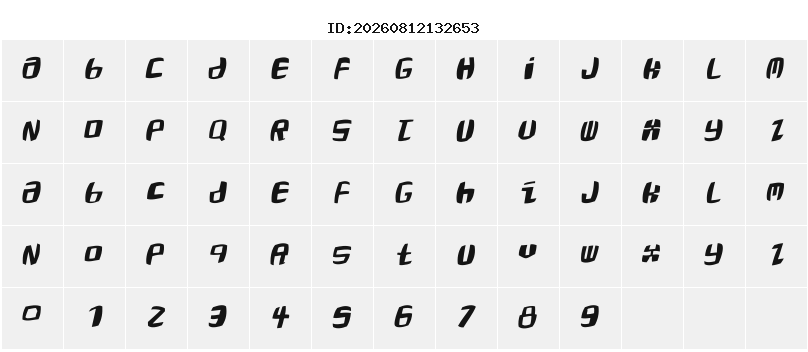
• Font Name: RoaringTwentiesTwo
• Font ID: RoaringTwentiesTwo-Oblique
• Full Font Name: RoaringTwentiesTwo-Oblique
• PostScript Name: RoaringTwentiesTwo-Oblique
About RoaringTwentiesTwo.ttf
RoaringTwentiesTwo.ttf is a modern, elegant sans-serif font designed for ultimate readability and visual harmony. Perfect for branding, headlines, web design, and print materials.